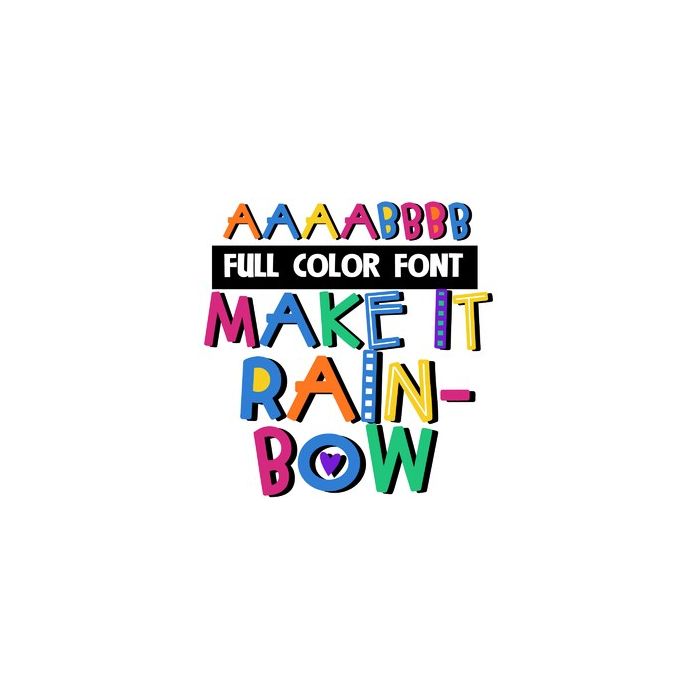
This full-color font features a playful font with a big mix of styles and rainbow color palette. There is an alt case w/ additional colors you can access through your system or Silhouette's glyph map.